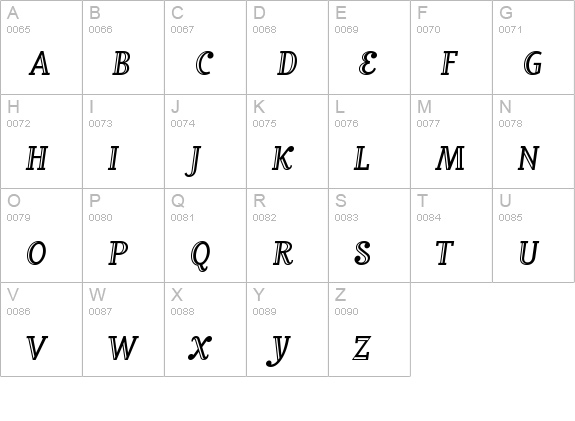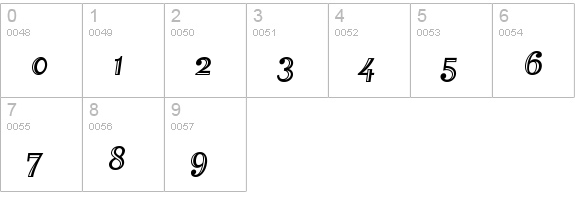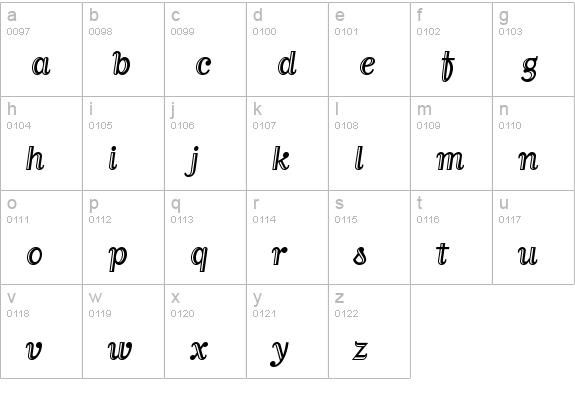
MatrixInlineScriptOldstyle Regular Font Details
MatrixInlineScriptOldstyle Regular is the standard, neutral variant in the MatrixInlineScriptOldstyle typeface family \xE2\x80\x94 well suited to general body text, paragraphs, and standard typographic work.